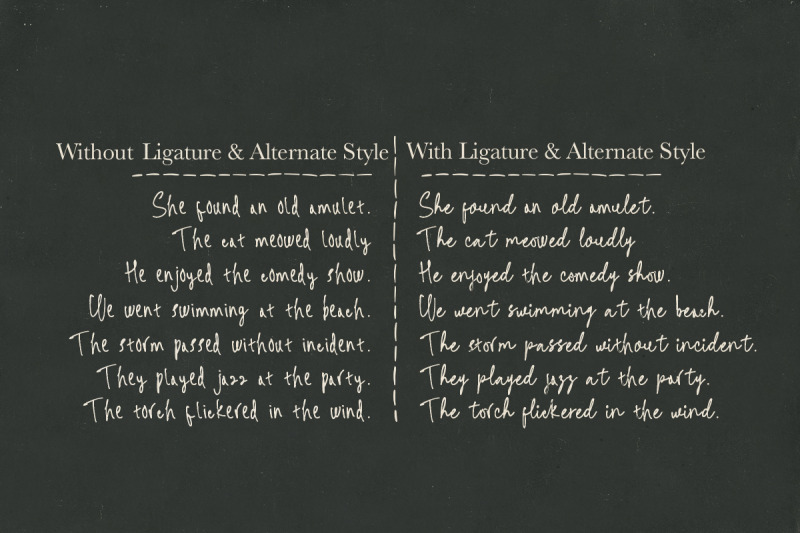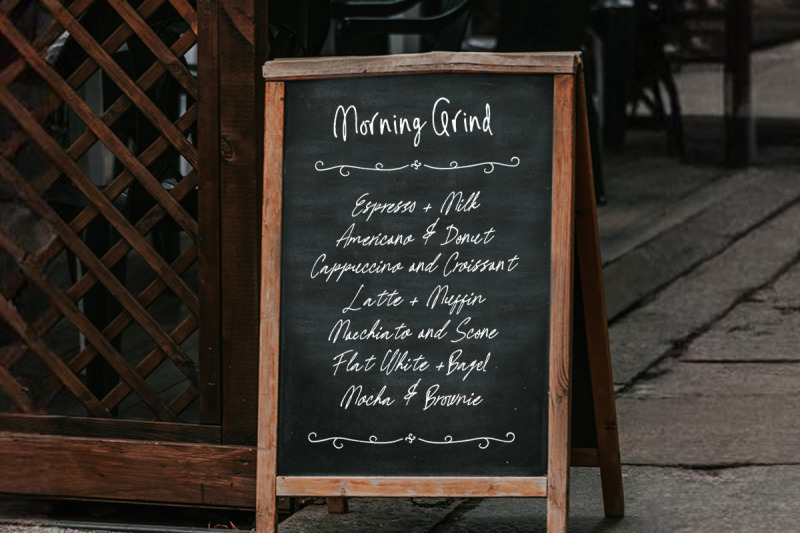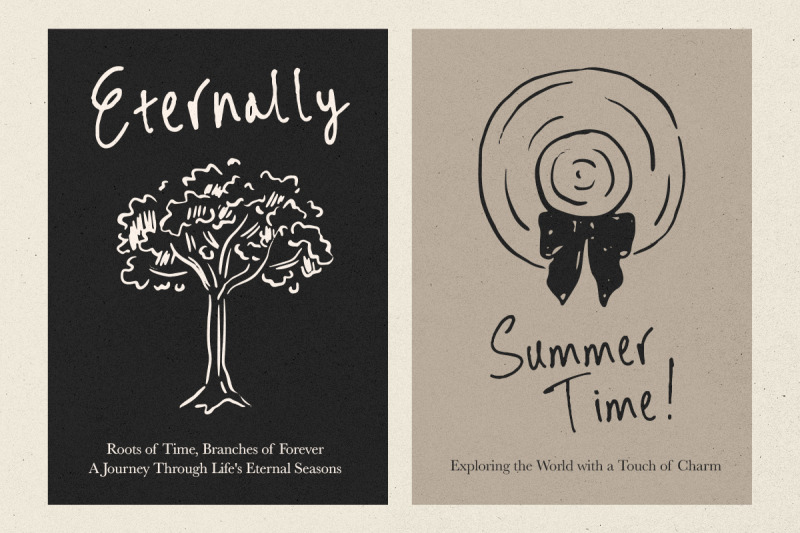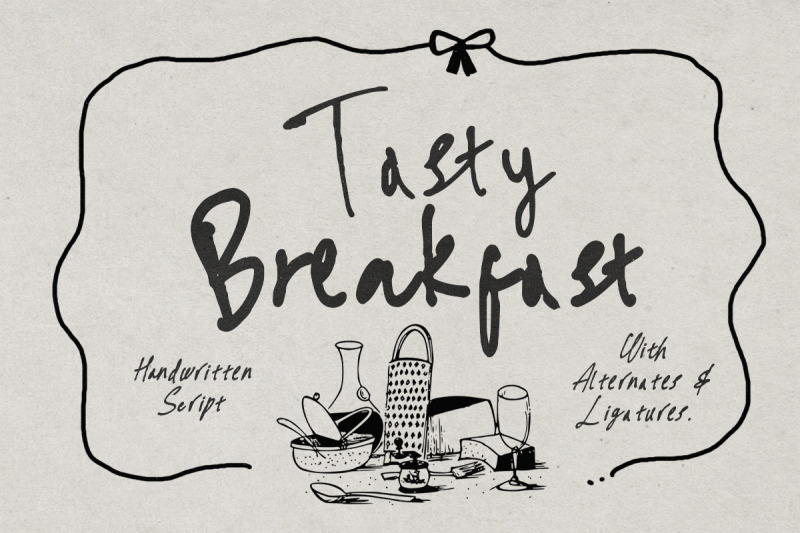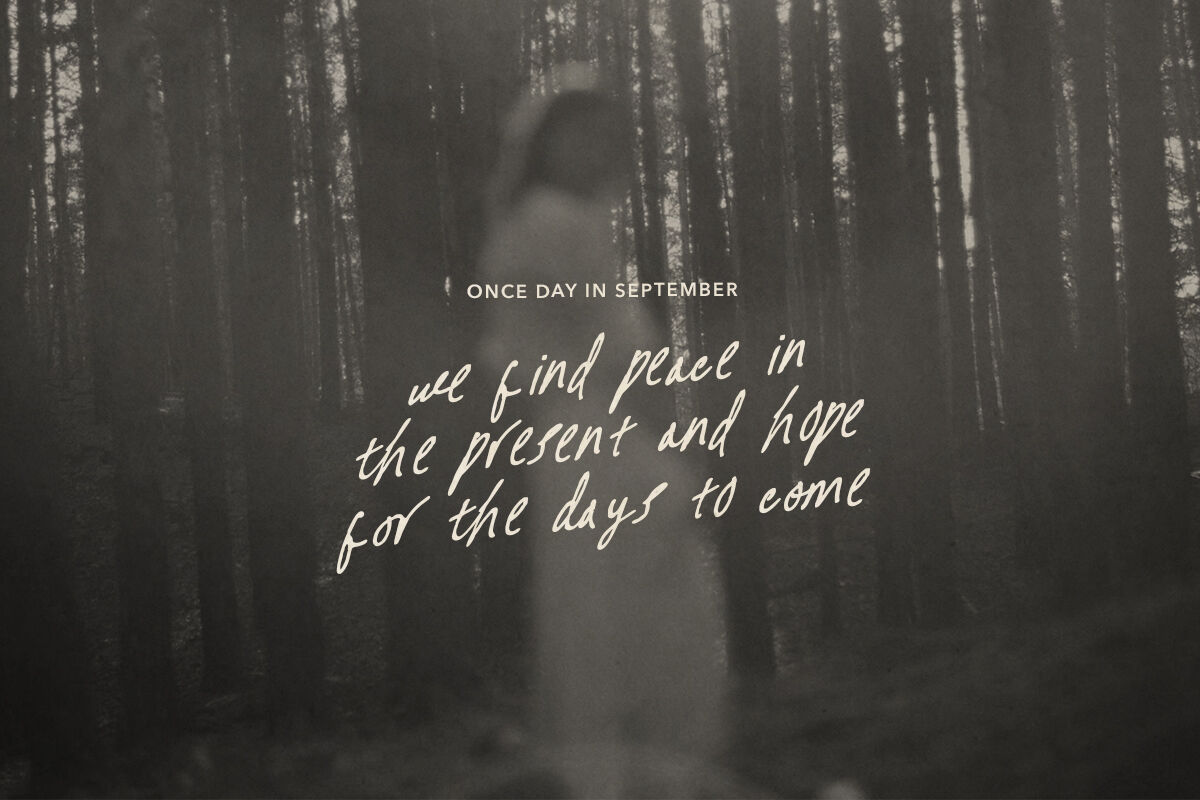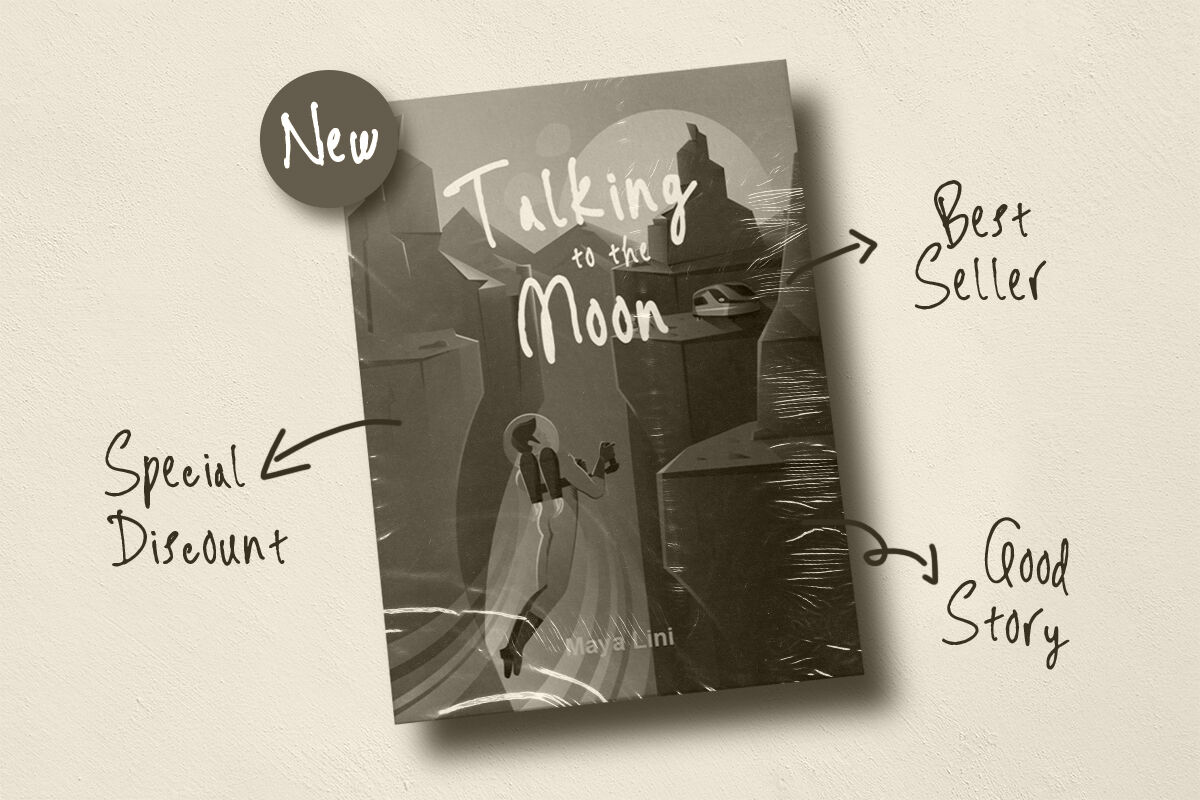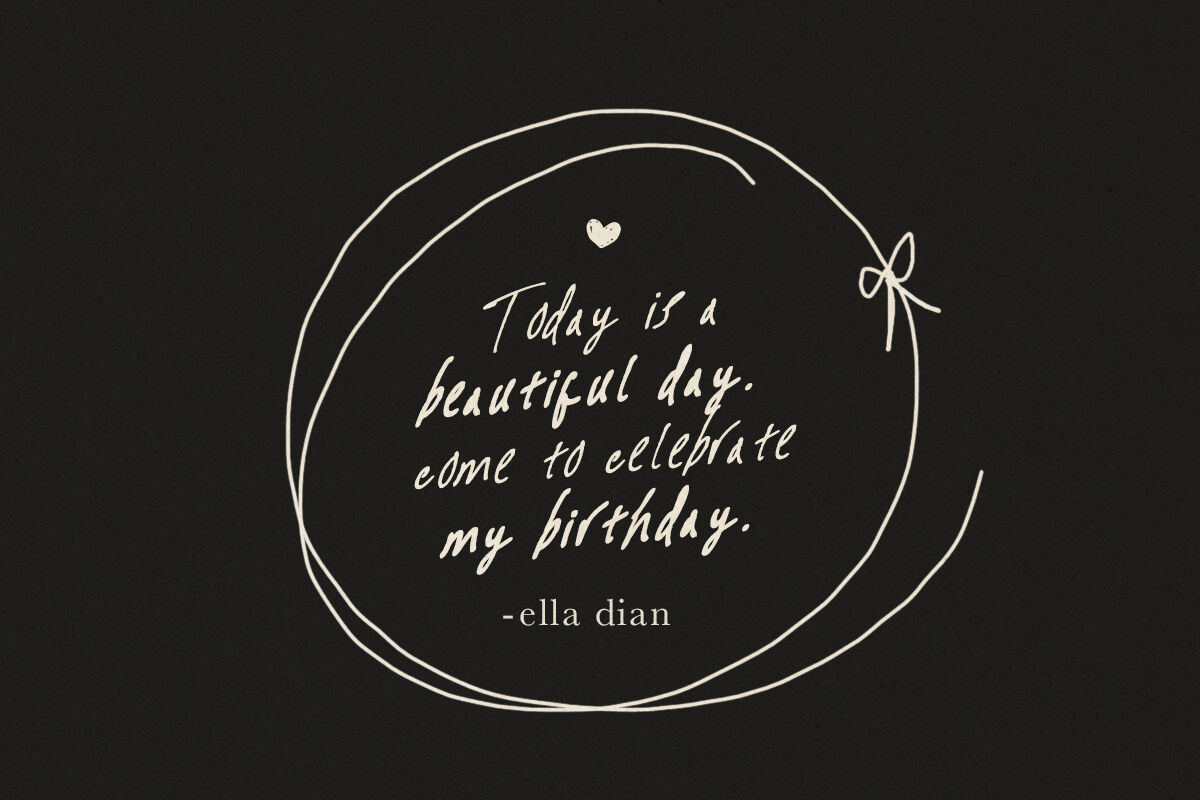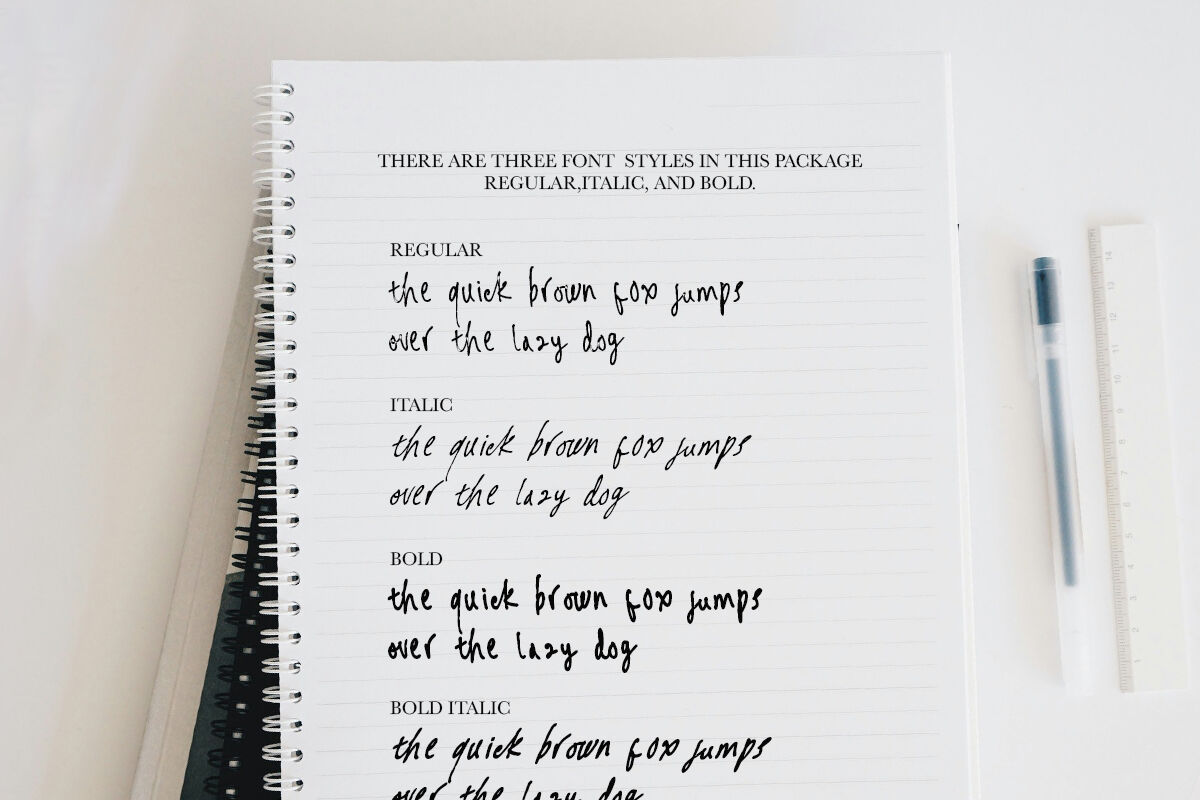
Tasty Breakfast - Handwritten Font
Tasty Breakfast is a handwritten script font family with ligatures and alternates. Including Regular, Italic, Bold, and Bold Italic that you can choose for your project. You can use this font for any purposes such as branding, menu, poster, wedding invitations especially for quotes. This font also support multi language.